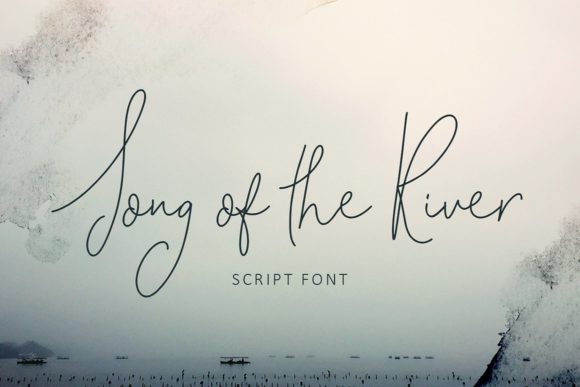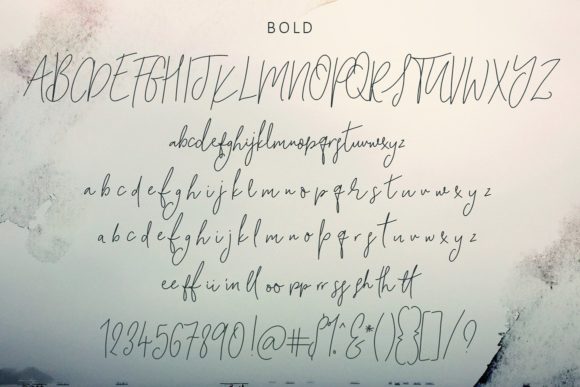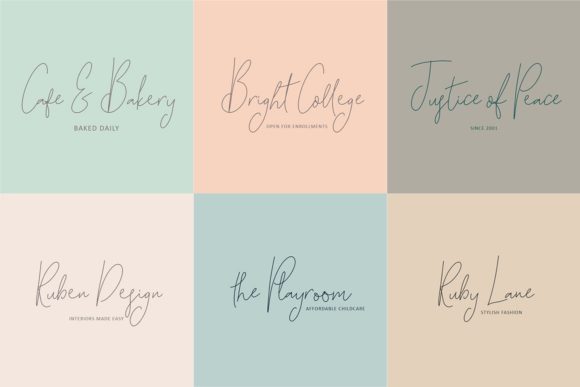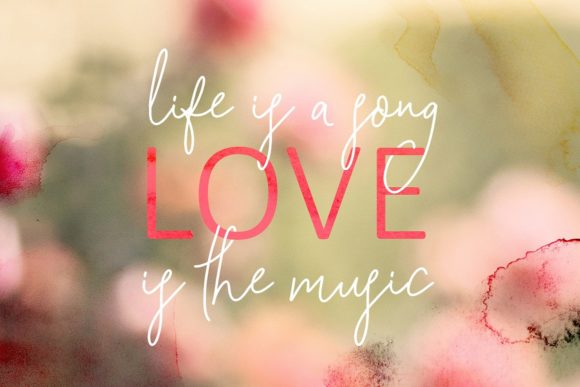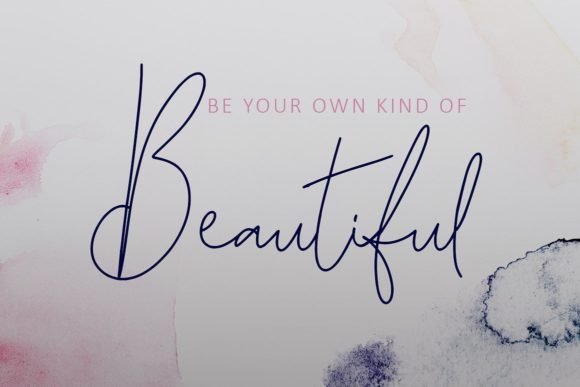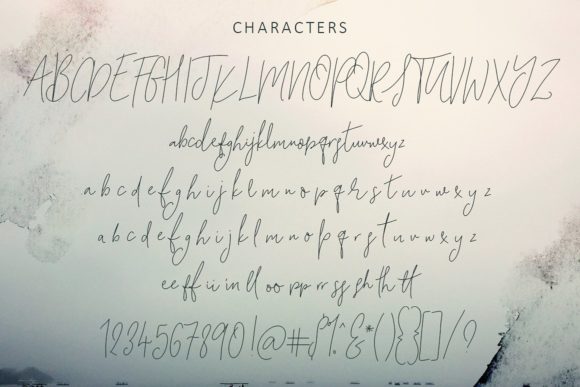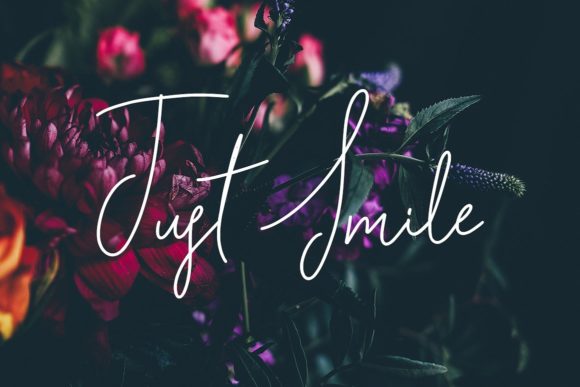
Song of the River Font
About Song of the River Font
The Song of the River is a beautiful flowing hand written script suited to weddings, invites, quotes, social media, blogs, websites, book titles, and so much more!